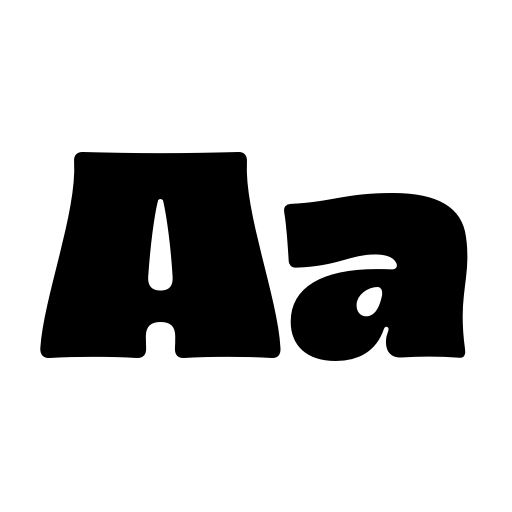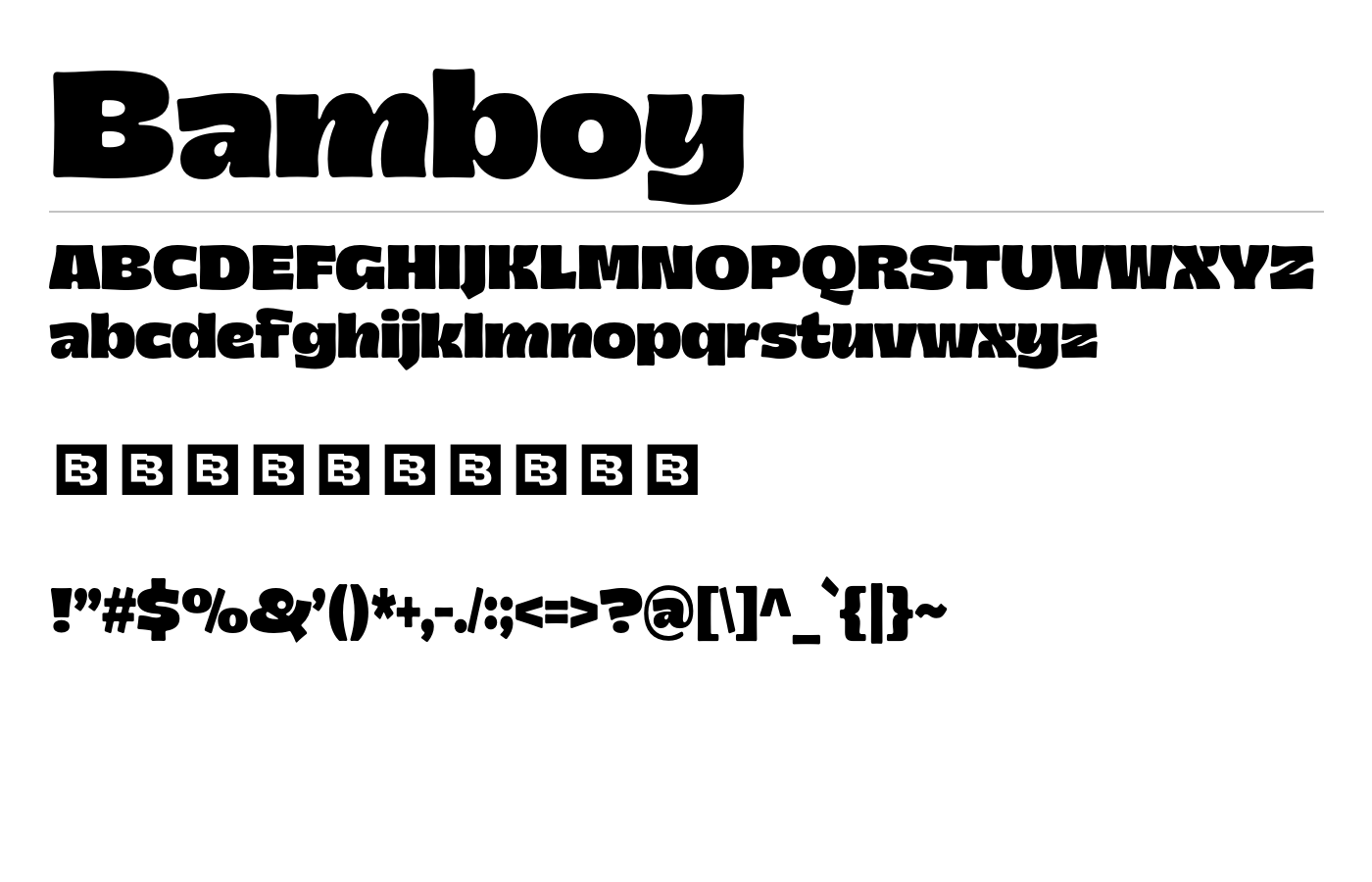
Bamboy is a bold, playful sans serif font with a chunky, slightly condensed feel and soft, rounded edges that give it a friendly and approachable personality. Its high x-height and strong weight make it highly legible for headlines and display uses, while the quirky, irregular letter shapes add a fun, informal vibe perfect for creative branding, posters, and children’s products. This font works well wherever you want to make a strong, cheerful statement with a casual, modern twist.
Bamboy Font
About Bamboy Font
| Font family | Bamboy Font |
| Designer | Eko Bimantara |